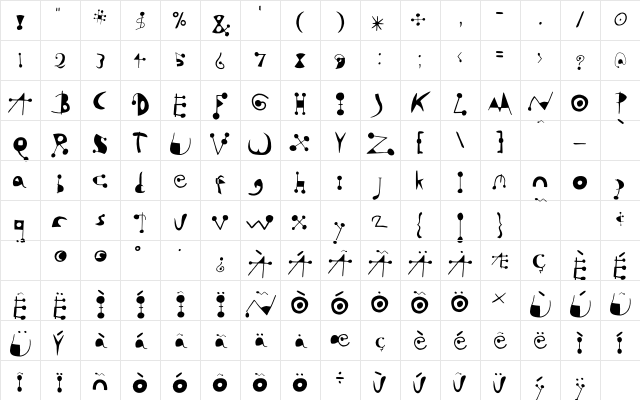
Miro Regular Free Font
Miro Regular
Design Context for Miro
Miro is a composed and adaptable typeface that performs quietly and consistently across a wide range of design contexts.